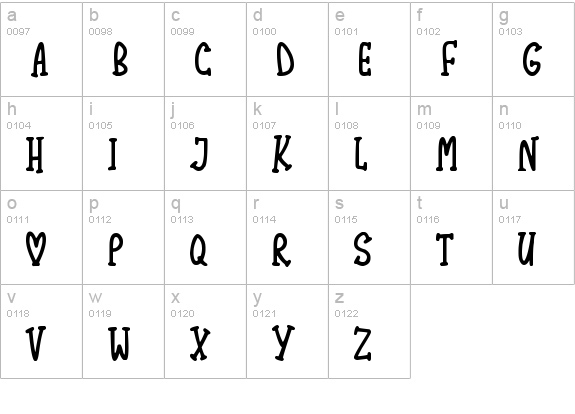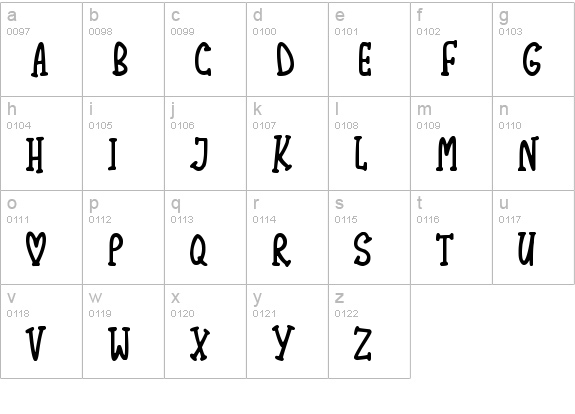
Lovely Serifs Font Details
Lovely Serifs is a donationware font in the Fancy > Feminine category, designed by Darrell Flood. It has been downloaded 208 times and is available for Windows, Mac and Linux.
Introducing Lovely Serifs font, a timeless and elegant typeface that exudes sophistication and charm. With its delicate serifs and graceful curves, Lovely Serifs is perfect for adding a touch of class to your designs. Whether you're working on invitations, branding, or editorial projects, this font is sure to elevate your work to the next level.